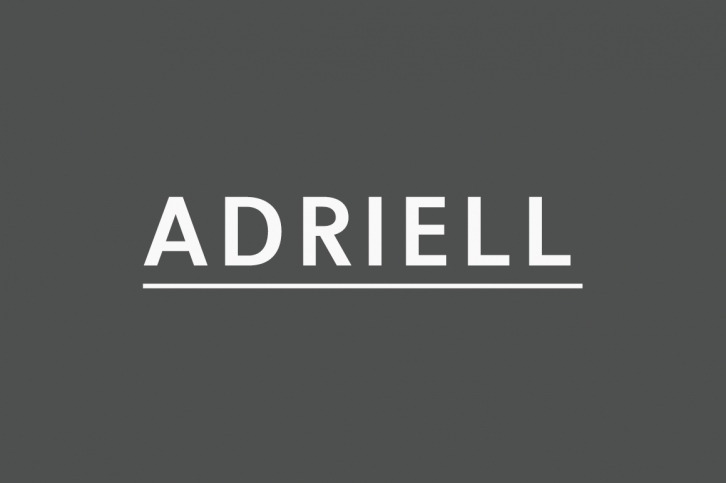
Adriell Sans Serif Font Family is a set of 5 weights font family, a sans serif font that is extremely minimal and clean. This font is exceptionally modern and suited to a wide range of designs.